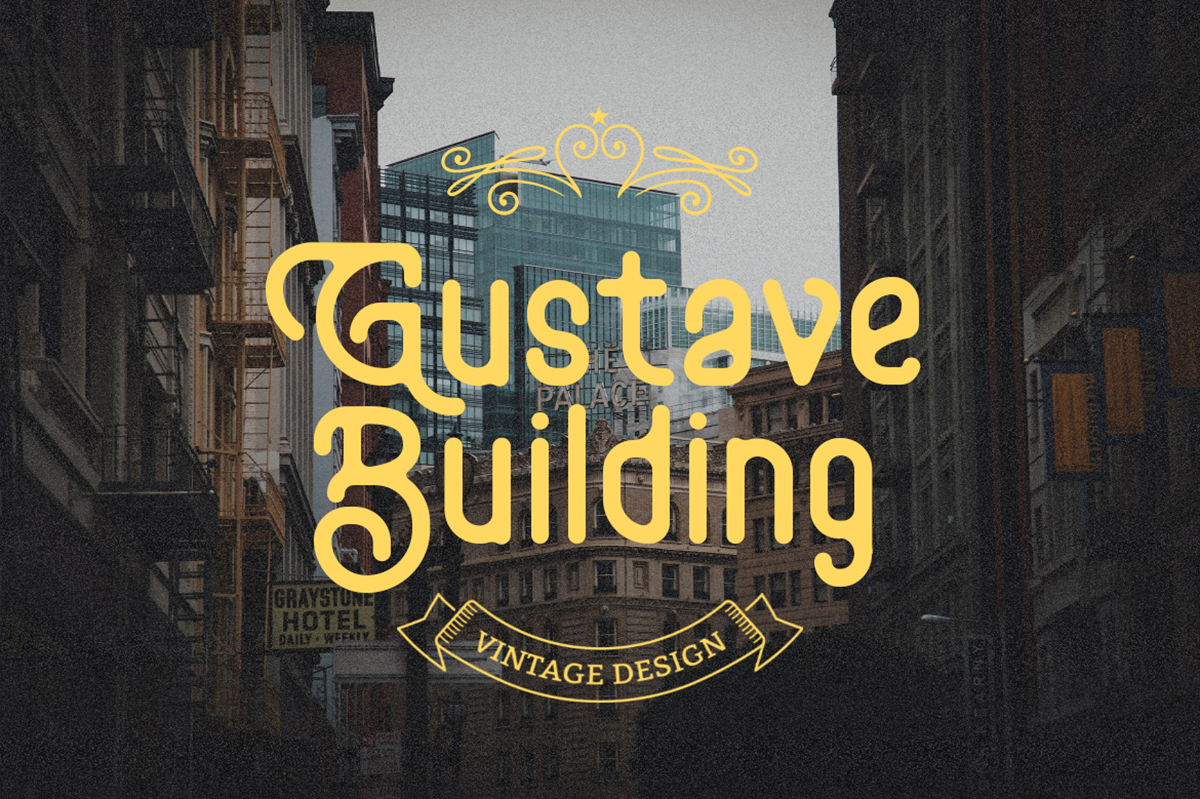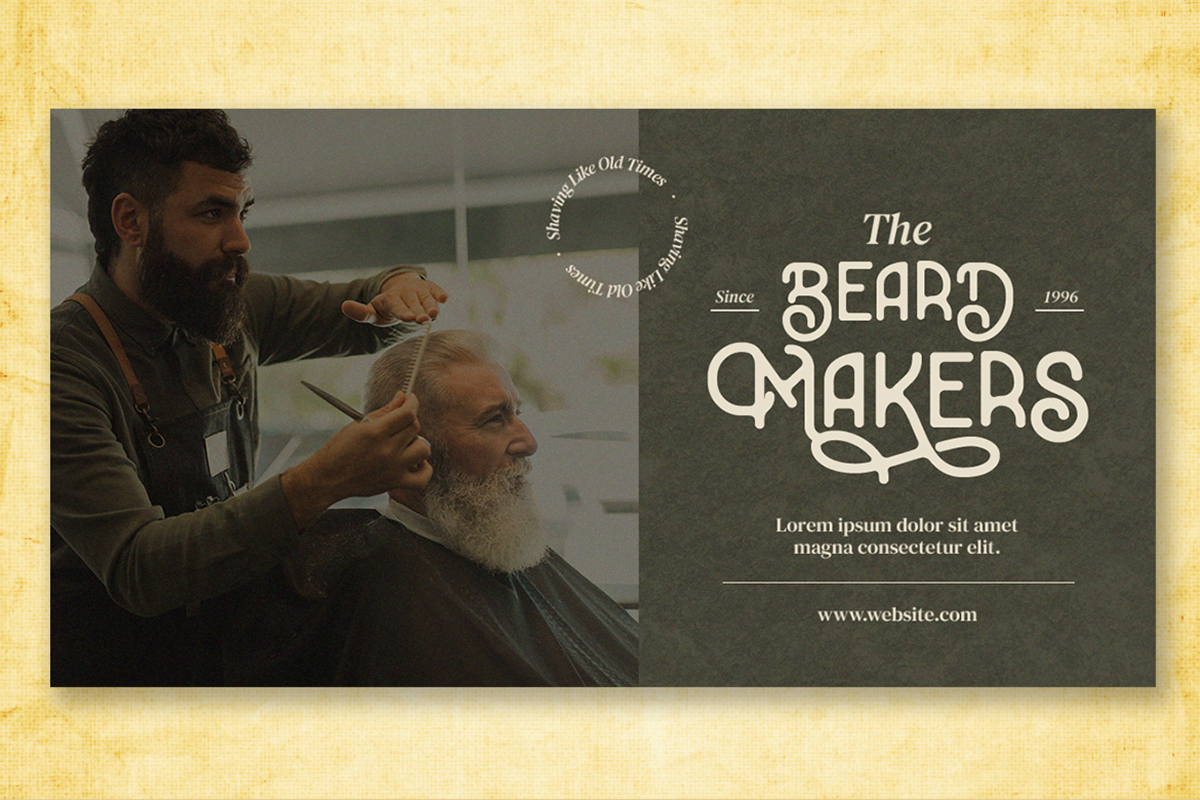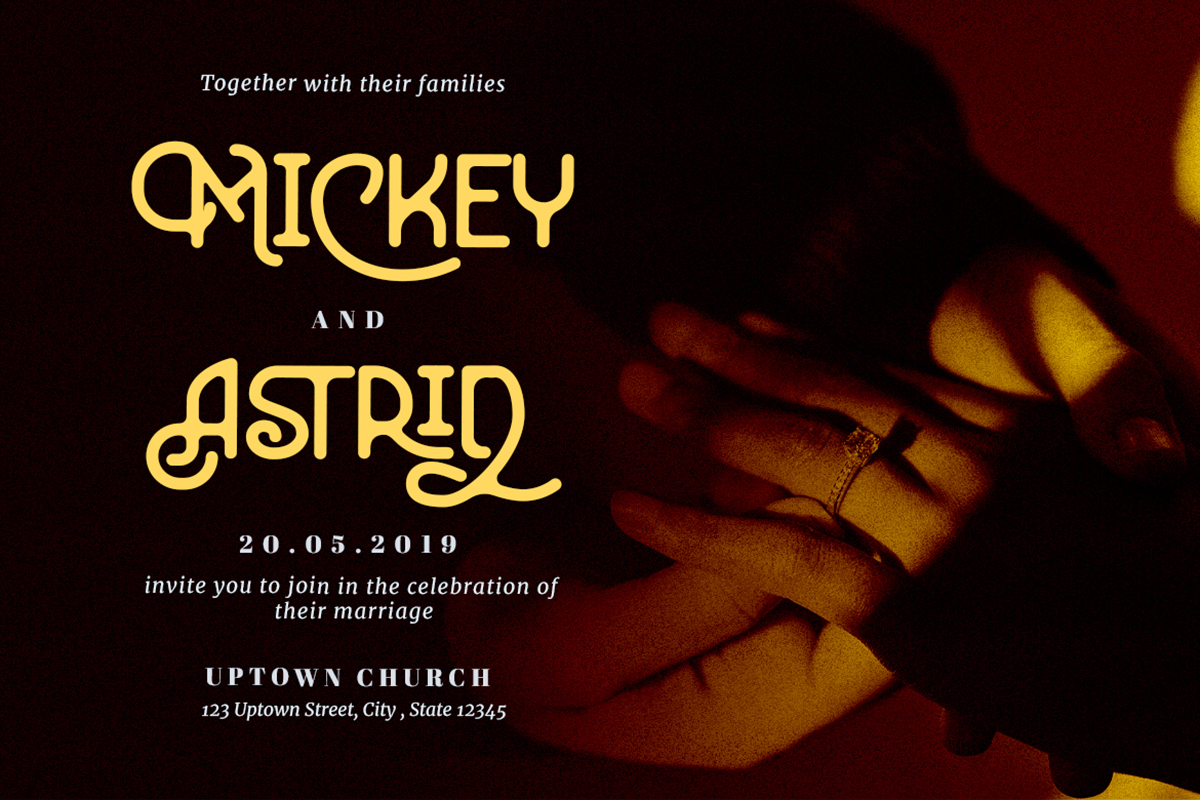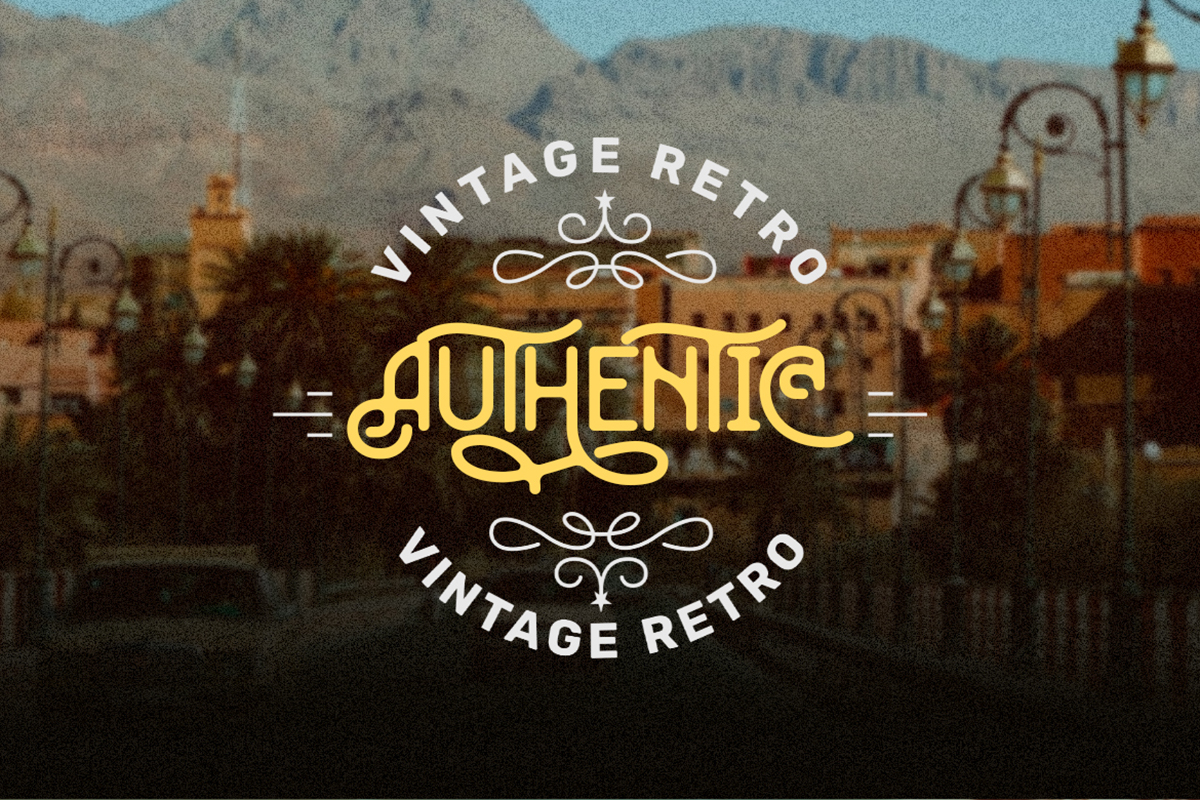
Balrog Free Font
Balrog Free Font evokes a sense of nostalgia and timeless elegance. Its delicate, single-line strokes transport the viewer to a bygone era, while its refined simplicity exudes a sense of refinement and class. This font is the perfect choice for designs that want to convey a sense of history and sophistication.